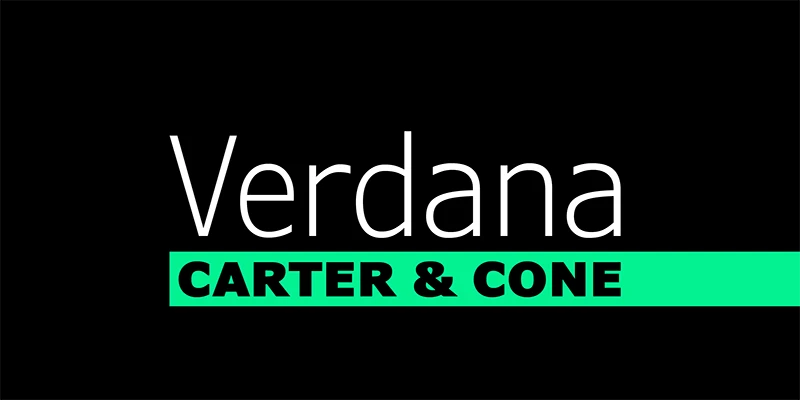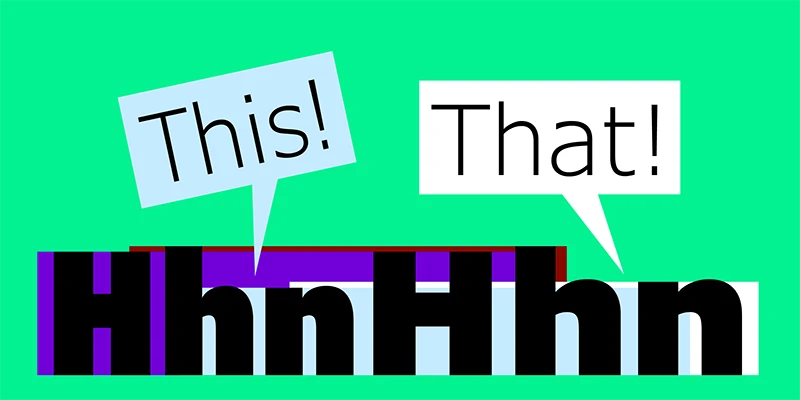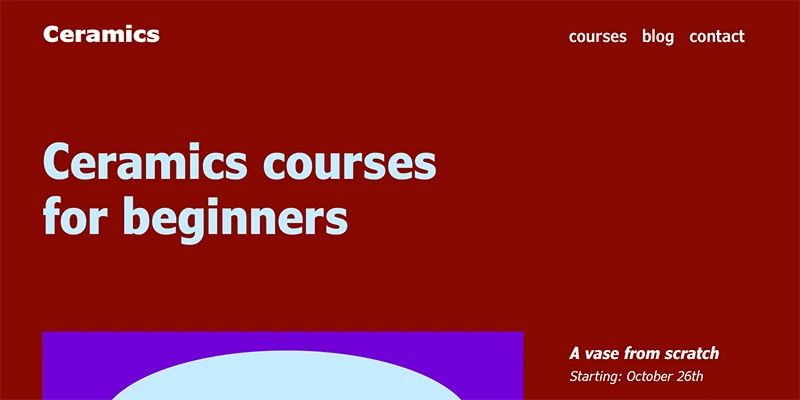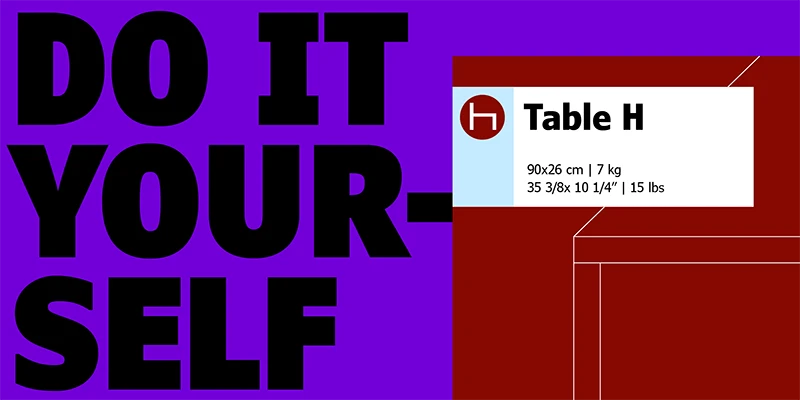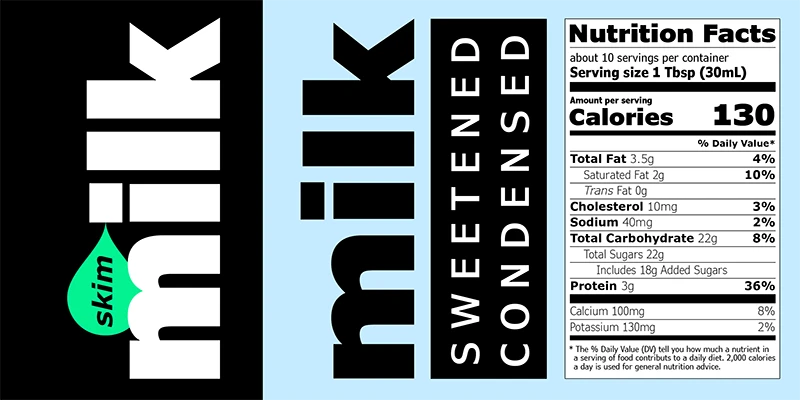
Verdana Pro
From Carter & Cone
Matthew Carter originally designed Verdana for Microsoft for the screen. Its clarity and versatility — and hinting from Tom Rickner — have withstood the medium’s limitations. David Berlow has expanded the family with help from David Jonathan Ross. And now, more than 20 years later, it is still among the Web’s most legible, usable fonts. All 20 styles of Carter & Cone’s Verdana Pro include support for Latin, Cyrillic, and Greek. This makes it an adaptable, modern sans fit for print and mobile use.
Designed by Matthew Carter